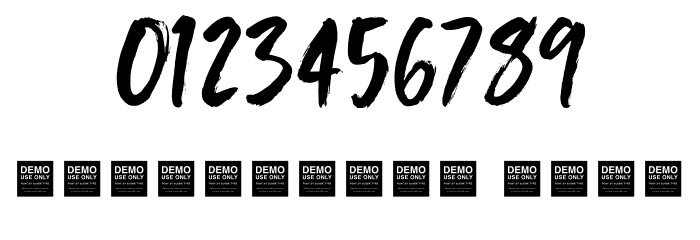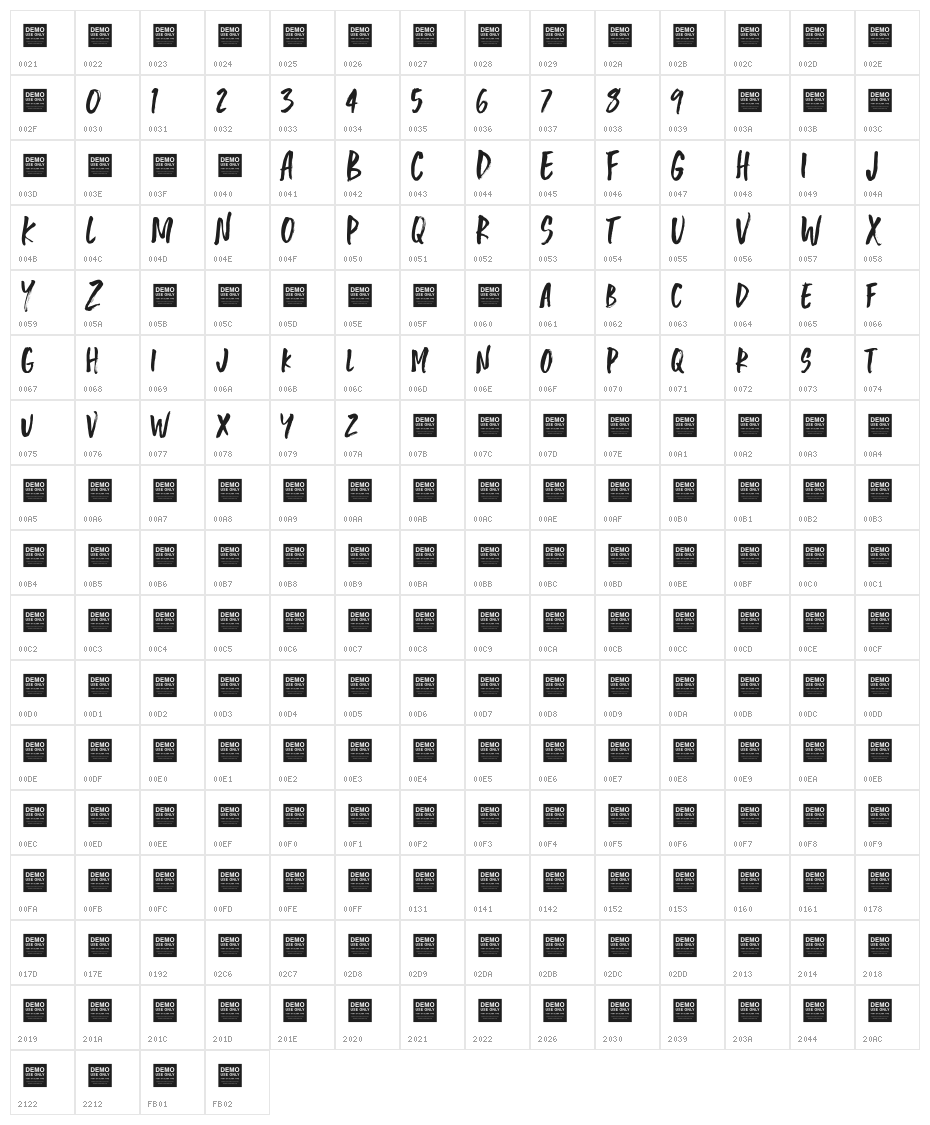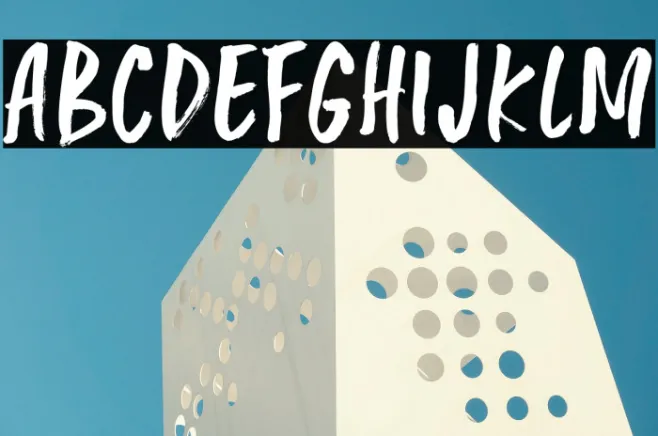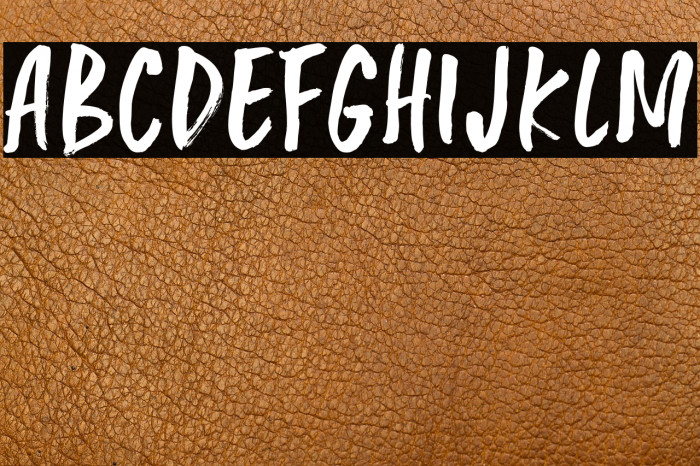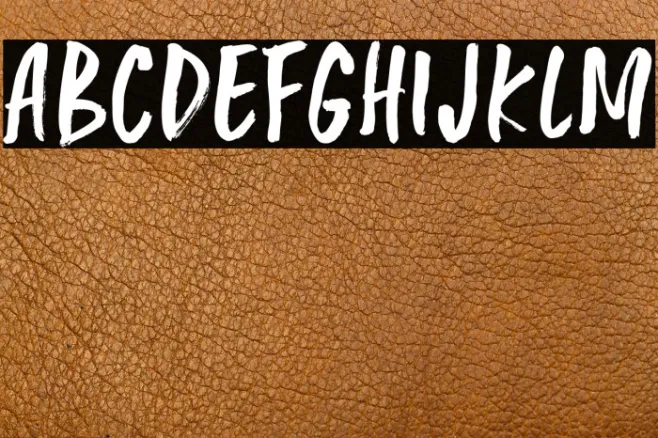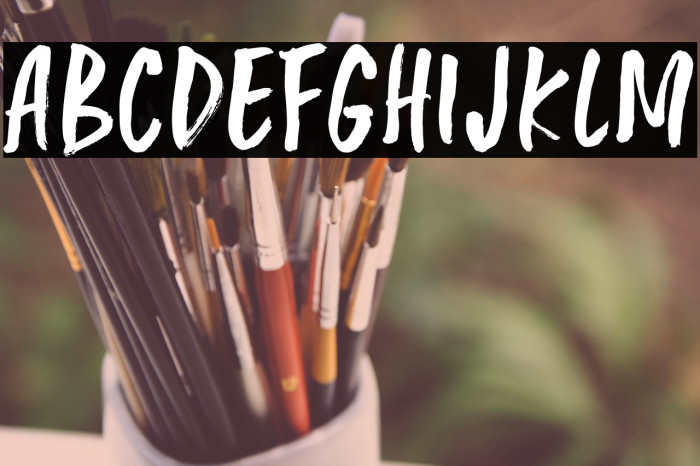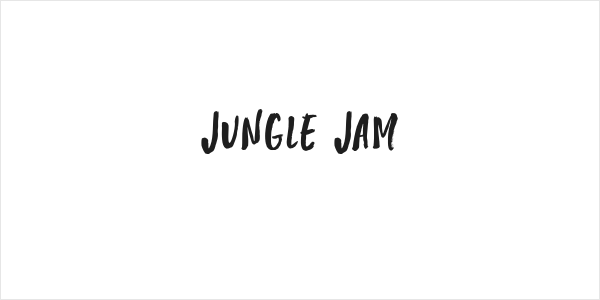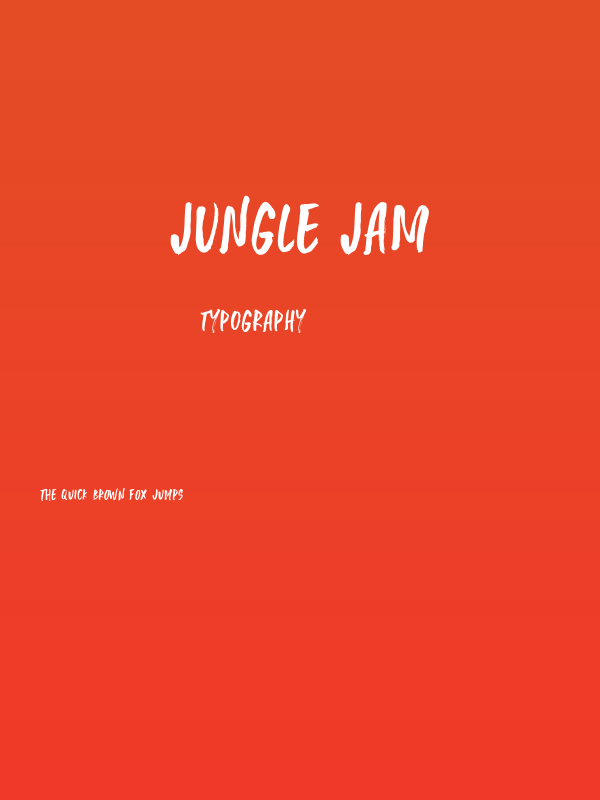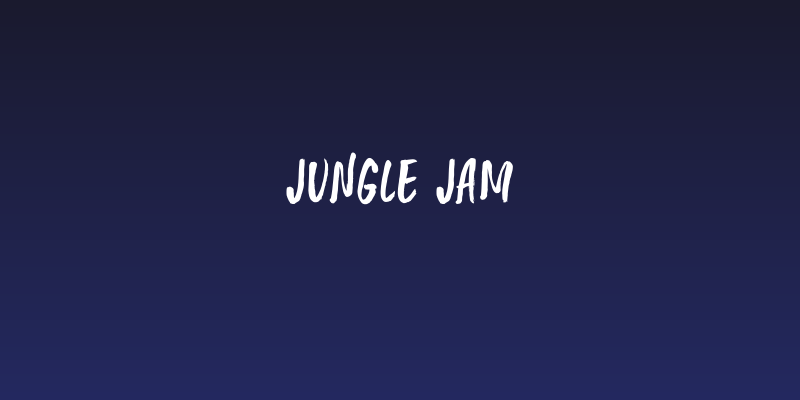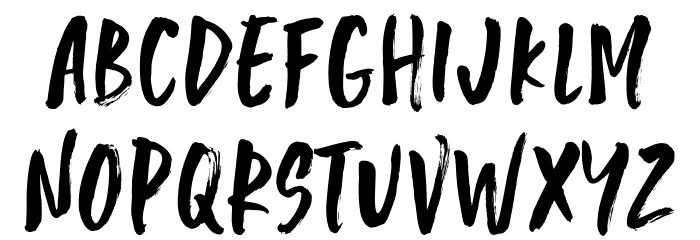
Jungle Jam Font
Jungle Jam Description
This font features a bold, brush-like style with a hand-painted appearance. The strokes are dynamic and expressive, giving a sense of movement and energy. The uppercase and lowercase letters are consistent in their artistic flair, with varying thicknesses that add to the font's lively character. The numbers and special characters maintain this aesthetic, ensuring a cohesive look across all elements. The overall design is both modern and artistic, making it suitable for creative projects that require a personal touch.